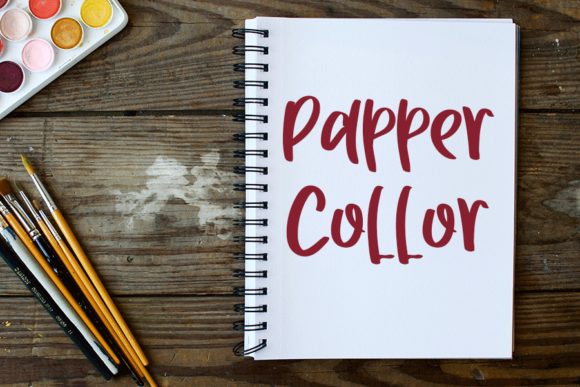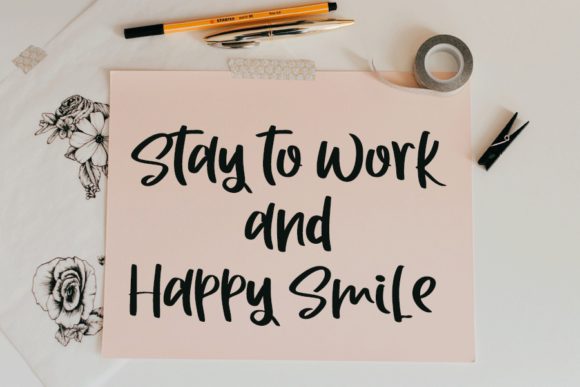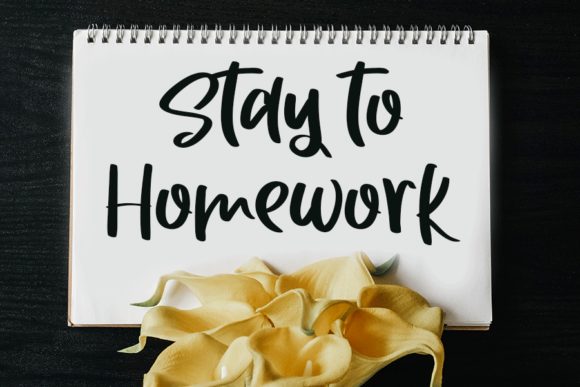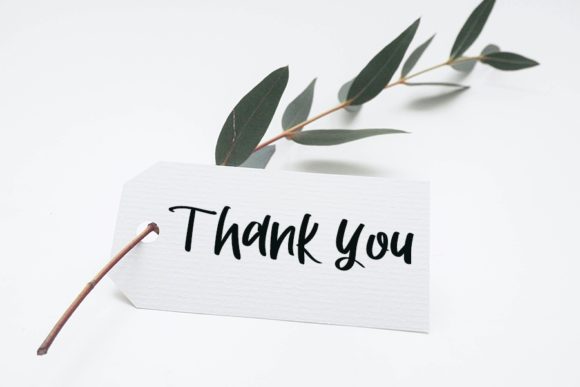
Unleashing Creativity with Beautiful Font
As a designer, have you ever found yourself stuck in a creative rut, unable to convey the emotions and essence of a project? You’re staring at a blank canvas, searching for the perfect words, and then – it hits you. A spark of inspiration, a dash of creativity, and suddenly, your vision comes alive. For many designers, this moment is what makes the craft so rewarding.
Enter Beautiful Font, a timeless and relaxed calligraphy font that embodies the essence of elegance and sophistication. This incredibly versatile style is perfect for creating gorgeous wedding invitations, beautiful stationery art, eye-catching social media posts, and much more. Whether you’re a seasoned designer or just starting out, Beautiful Font is an invaluable tool that will help you bring your ideas to life.
With its beautiful, handwritten feel, Beautiful Font is a valuable asset for designers looking to add a touch of personality to their projects. Its versatility and timeless appeal make it a must-have for any creative looking to elevate their work and leave a lasting impression.
Key Features of Beautiful Font
- Unique Characteristics: This font features a distinctive, elegant design with subtle nuances in letterform shapes, making it ideal for high-end branding, publishing, and advertising projects.
Beautiful Font Review
First off, I love the modern and sleek aesthetic of Beautiful Font. ✨ The elegant lines and precise typography give it a touch of sophistication that’s perfect for high-end designs. It’s also surprisingly versatile, working well in a variety of contexts from luxury brands to tech startups.
One of the standout features of Beautiful Font is its legibility. ✨ The font is easy to read, even at small sizes, making it perfect for body text and other applications where readability is key. Additionally, the font’s bold weights are robust and confident, adding a sense of authority to any design.
- ⚠️ May not be suitable for designs that require a more playful or whimsical feel
- ⚠️ Some users may find the font too ornate or overly complex
Overall, I think Beautiful Font is a solid choice for designers looking for a high-end, modern aesthetic. While it may have some limitations, its strengths make it a worthwhile consideration for the right projects.
Tips for Getting the Most Out of Beautiful Font
1. Use Beautiful Font to create visually appealing headings and titles.
2. Experiment with different font sizes and colors to add emphasis and contrast to your design.
3. Combine Beautiful Font with other design elements, such as images and shapes, to create a unique and engaging visual style.
1. Wedding invitations and stationery
2. Branding and marketing materials
3. Social media graphics and posts
4. Blog and website headers and titles
Alternatives to Beautiful Font for Designers
Open Sans is a clean and modern sans-serif font. It is suitable for body text, headings, and titles. Open Sans is highly legible and works well in digital and print media. It is a popular alternative to Beautiful Font due to its versatility and readability.
Comparison to Beautiful Font: Open Sans is more modern and has a larger x-height, making it easier to read at smaller sizes. However, it may lack the elegant feel of Beautiful Font.